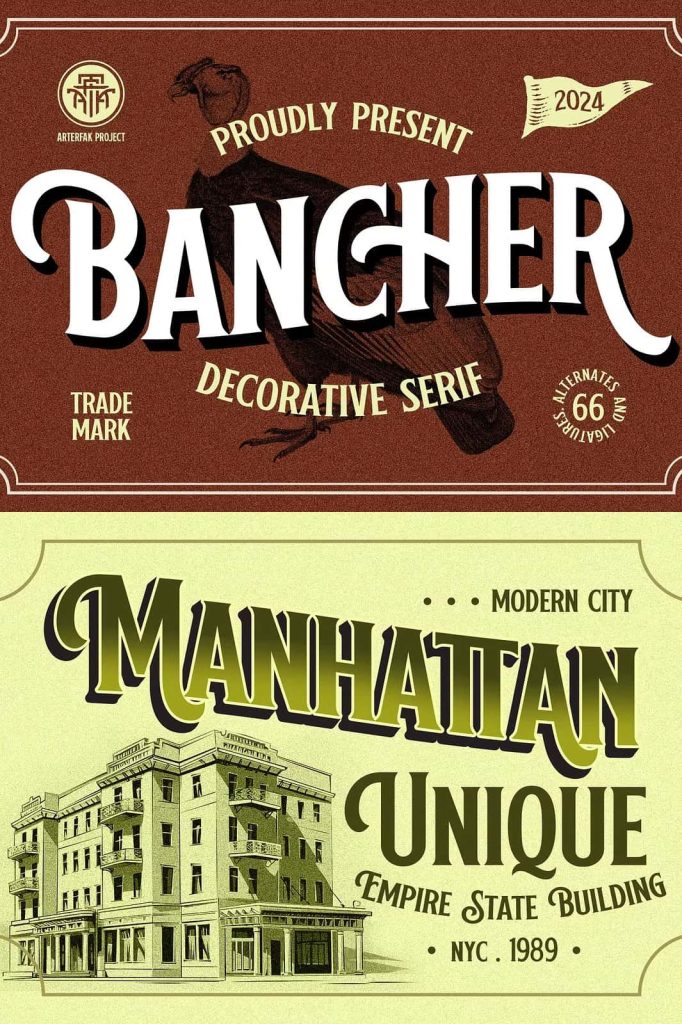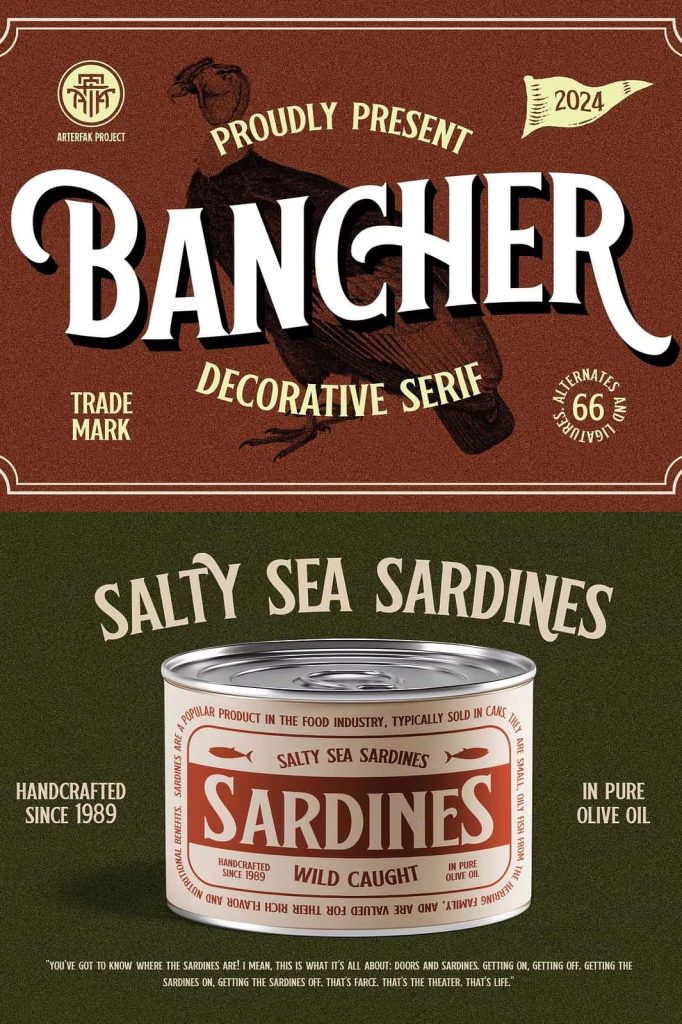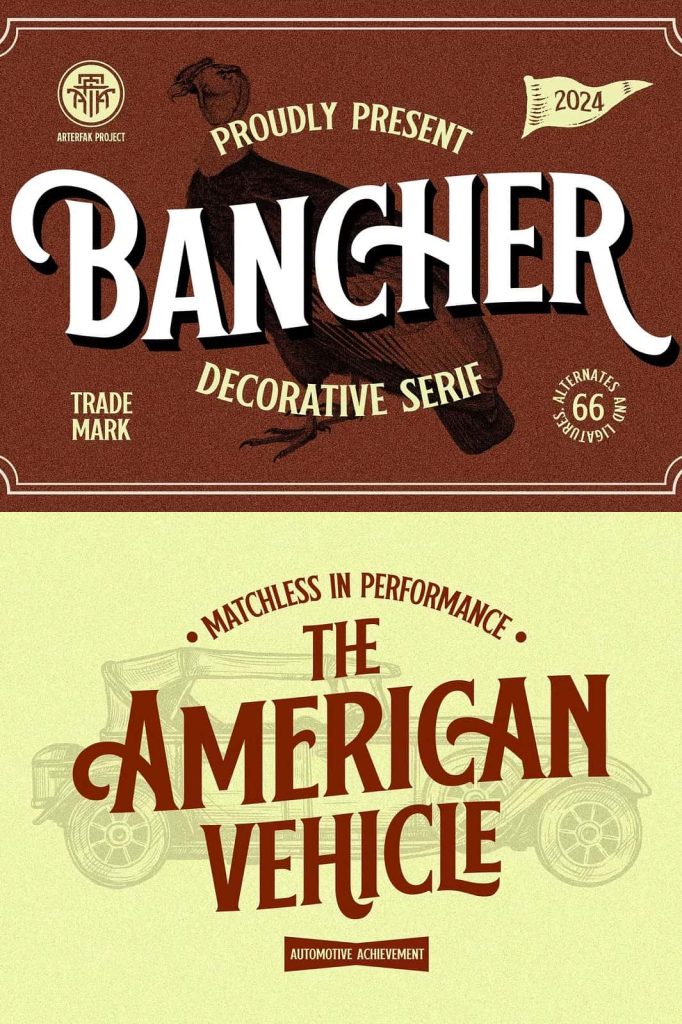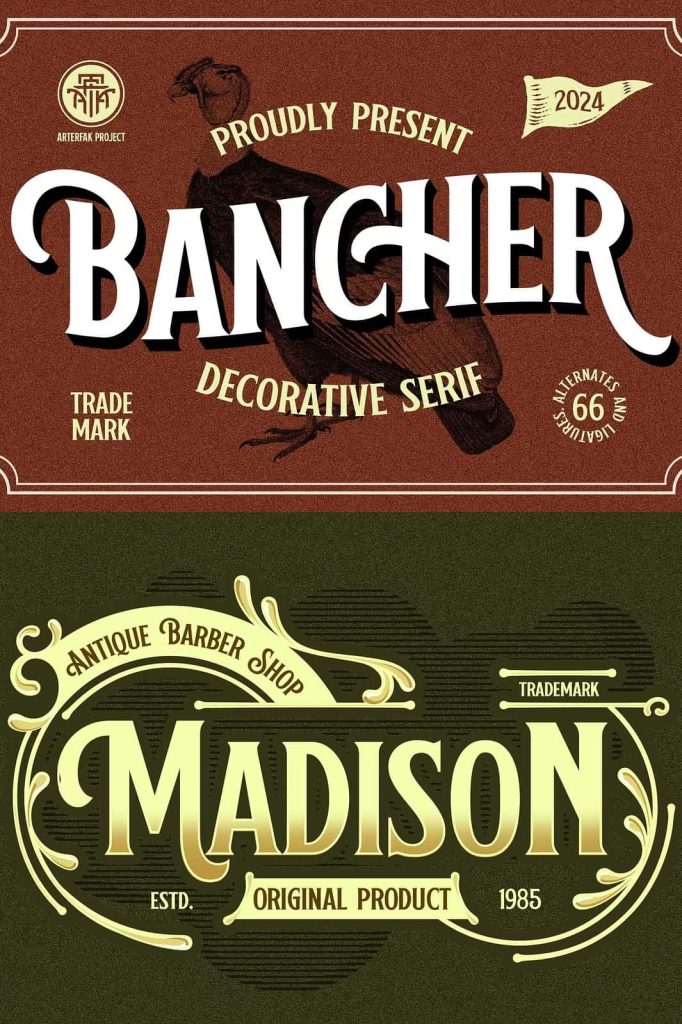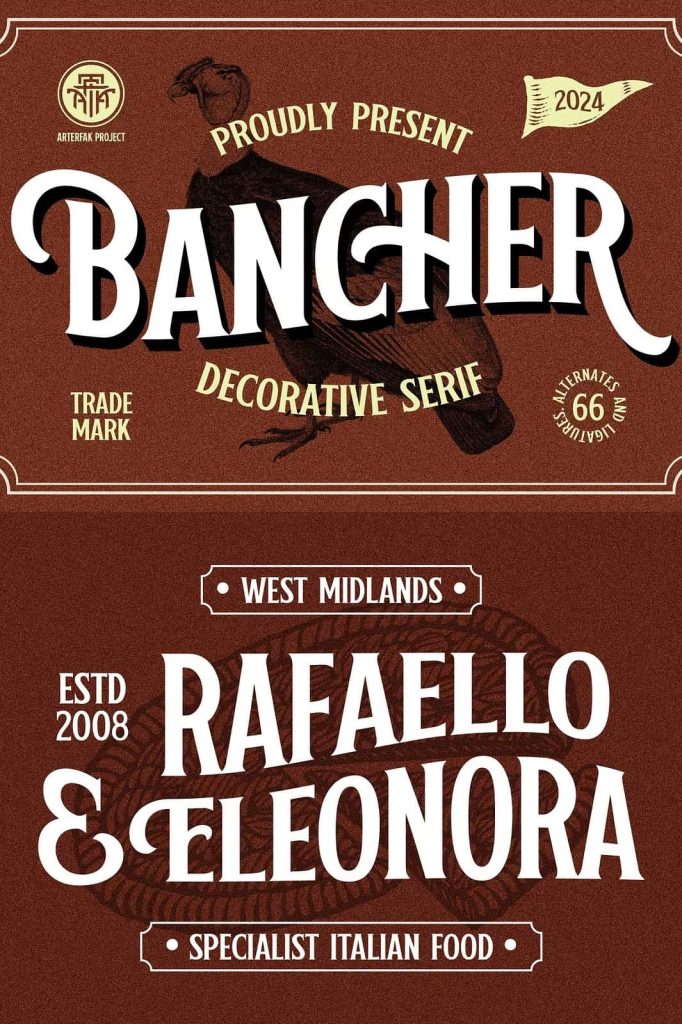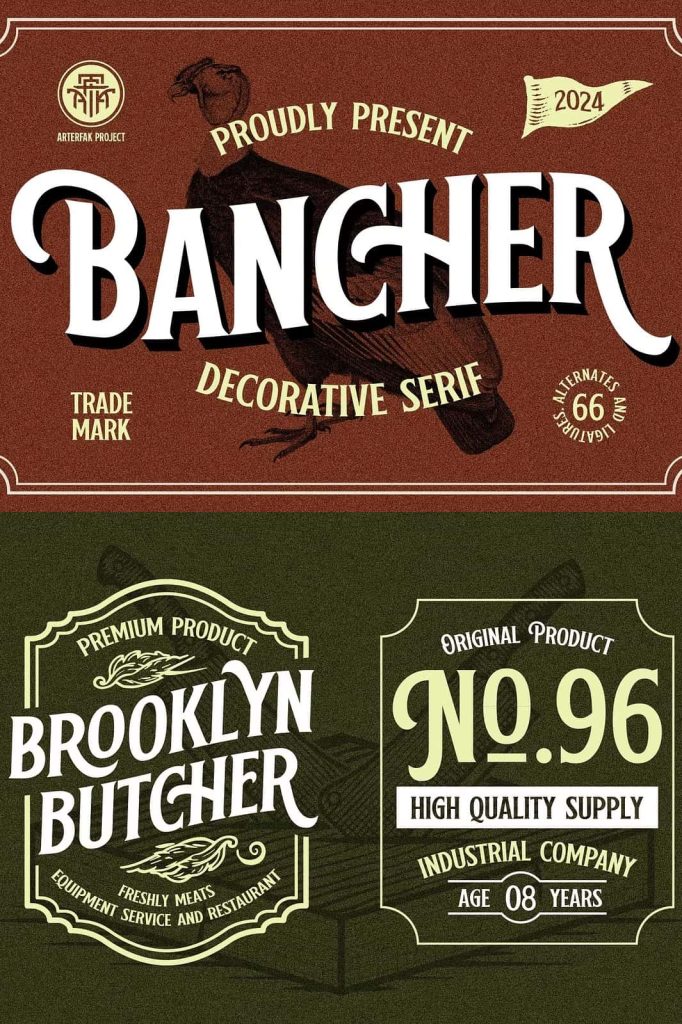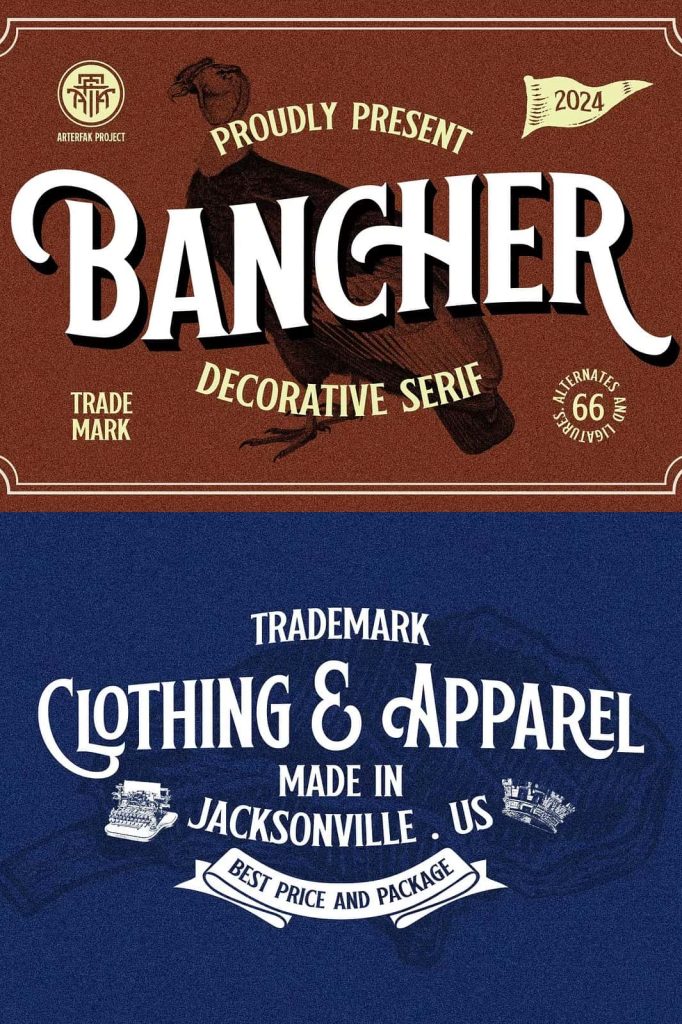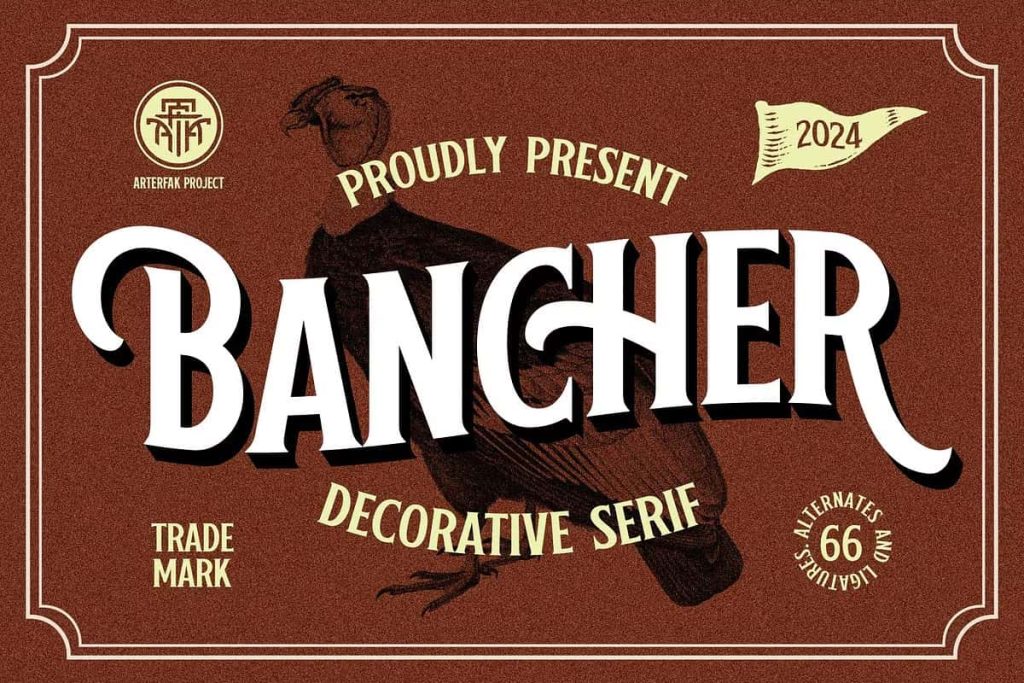
Bancher – Vintage Typeface
Introducing “Banchers,” a vintage-inspired serif font with a wealth of alternate characters. Bold and unique serif condensed, this font blends the charm of classic handcrafted typography with a modern, elegant touch.